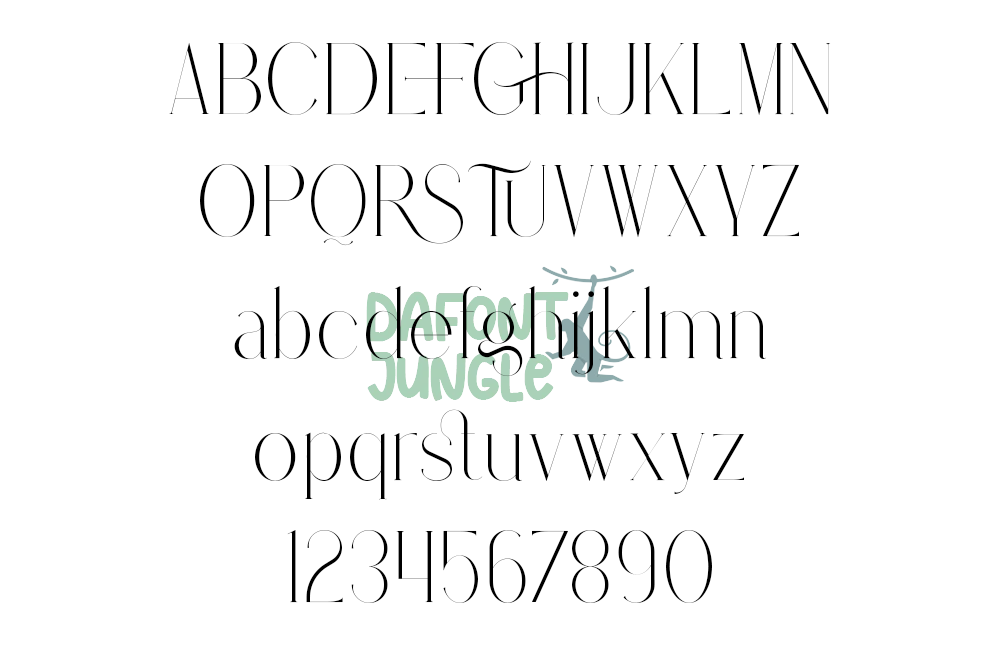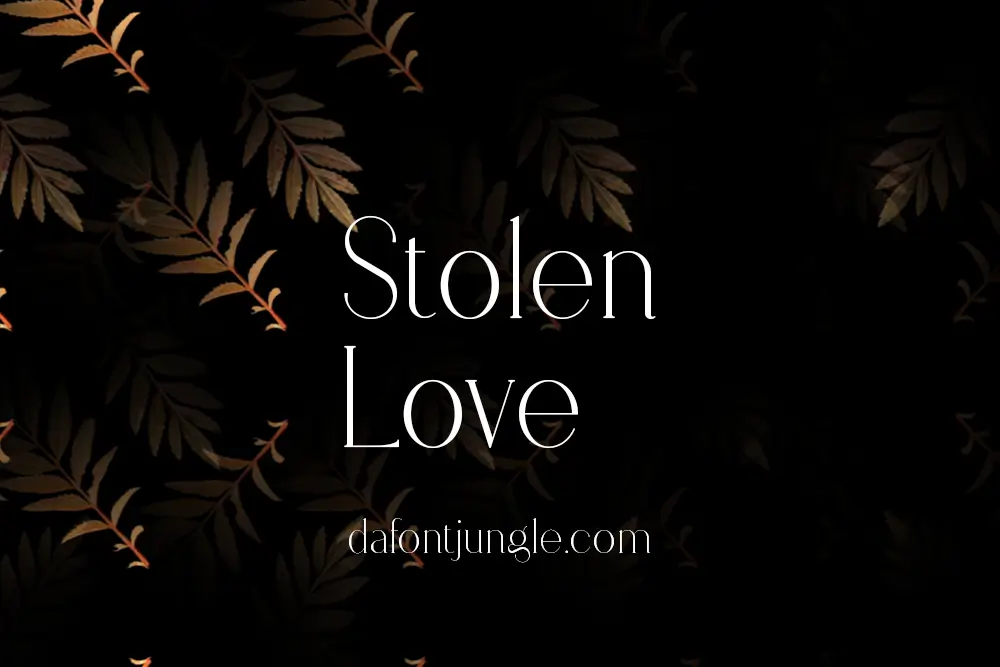
Stolen Love – Elegant Serif Font with Swashes and Extras
Stolen Love is a stylish serif font family with a creative twist. It includes 6 font styles, plus extras to help you build custom designs. You get 52 swashes in 3 sizes, 26 ornaments, and a range of alternates and ligatures.
This font is great for logos, wedding invites, packaging, and social posts. The swashes and ornaments make your text look elegant and one of a kind.